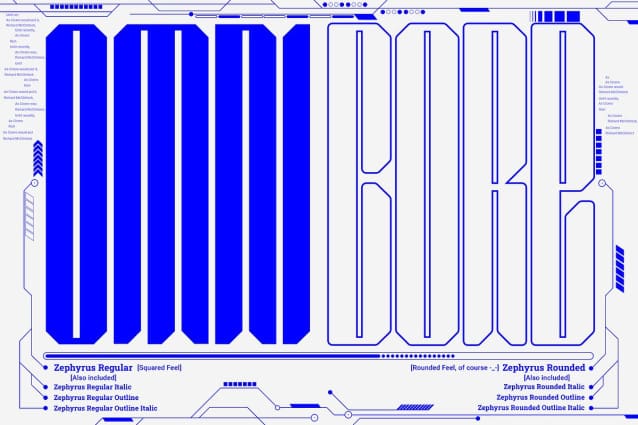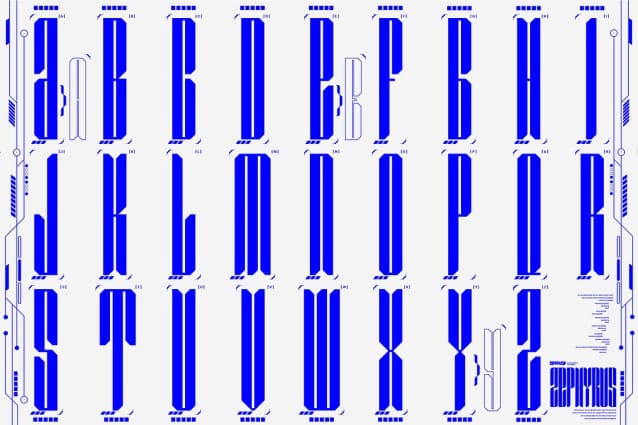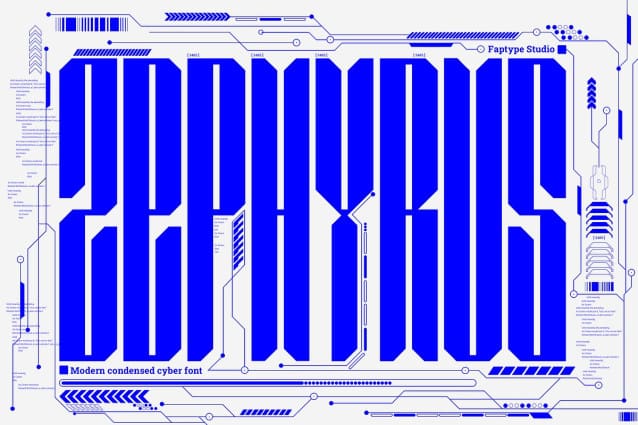
Zephyrus Techno Font
Zephyrus Techno Font, our new condensed modern cyber font that’s designed to take your designs to the next level! With its unique condensed squared feel, this font is perfect for anyone looking to add a modern and futuristic touch to their work.
But we didn’t stop there – we’ve also included a rounded version of Zephyrus, which softens the edges and provides a more approachable feel. This versatility means that you can use Zephyrus for a wide range of design projects, from logos and branding to websites and digital presentations.
In addition, Zephyrus comes equipped with numerals, symbols, punctuation, and foreign language support, making it a versatile and functional font that’s suitable for global projects. Whether you’re creating a tech-based project or looking to add a futuristic touch to your branding, Zephyrus has you covered.
Zephyrus Font is a great font for modern and futuristic designs. Its unique condensed squared feel and rounded version make it a versatile choice for a wide range of design applications.